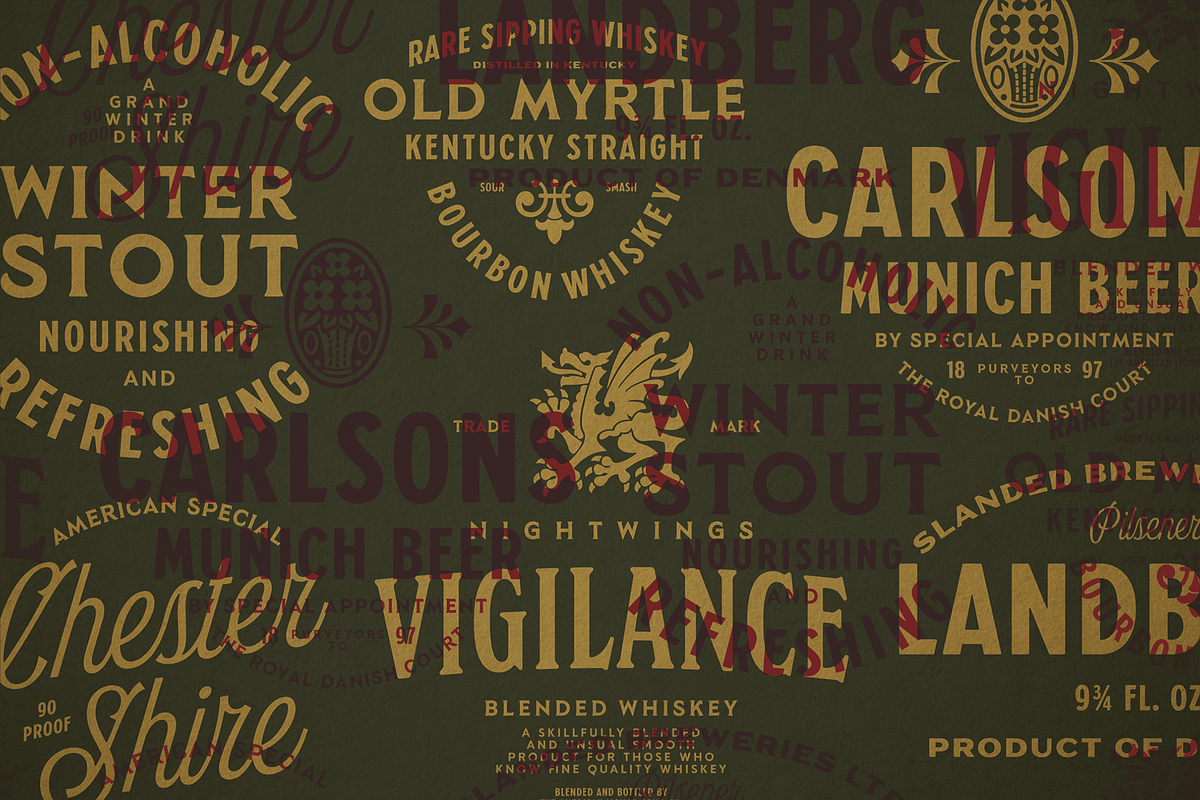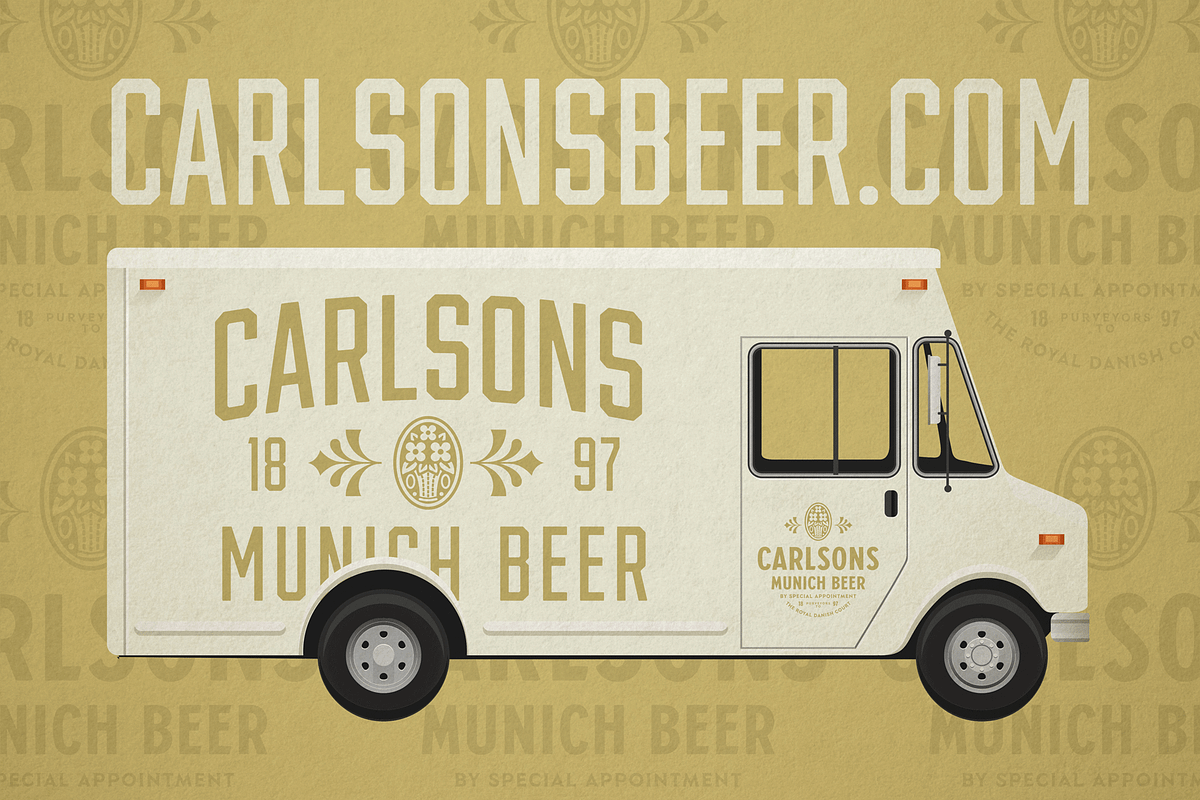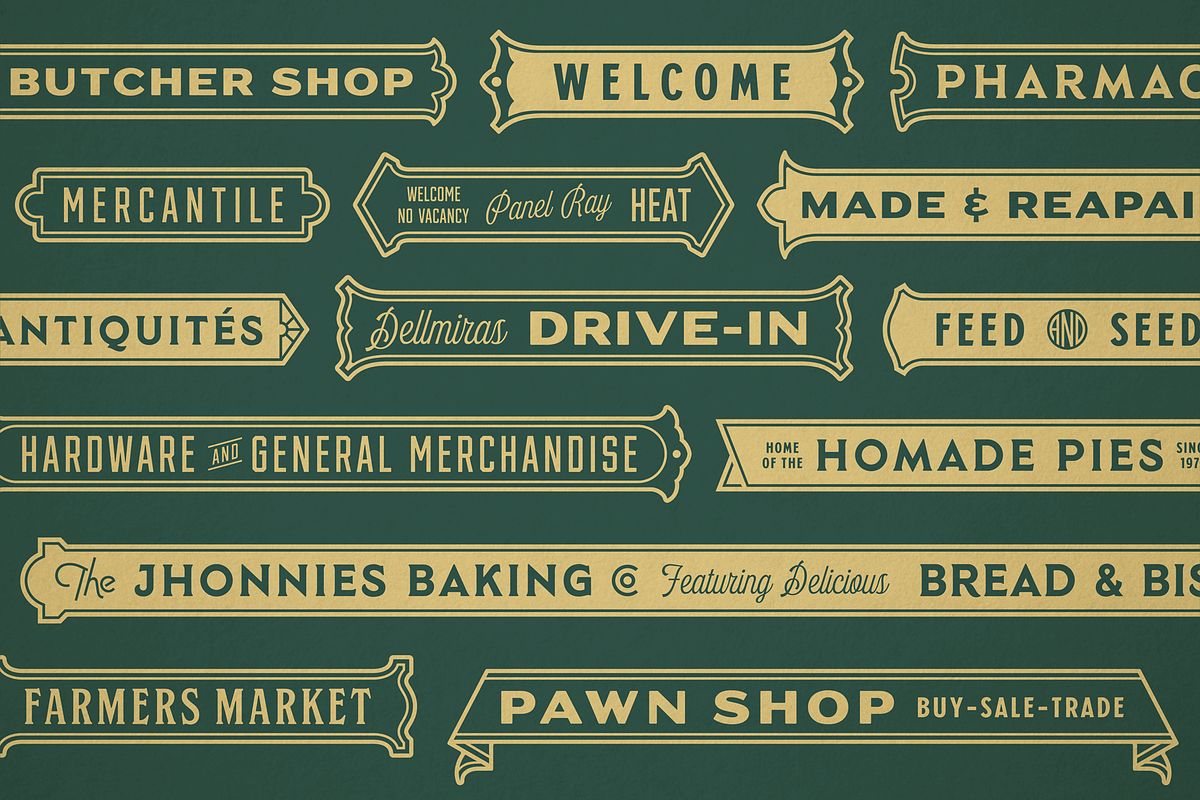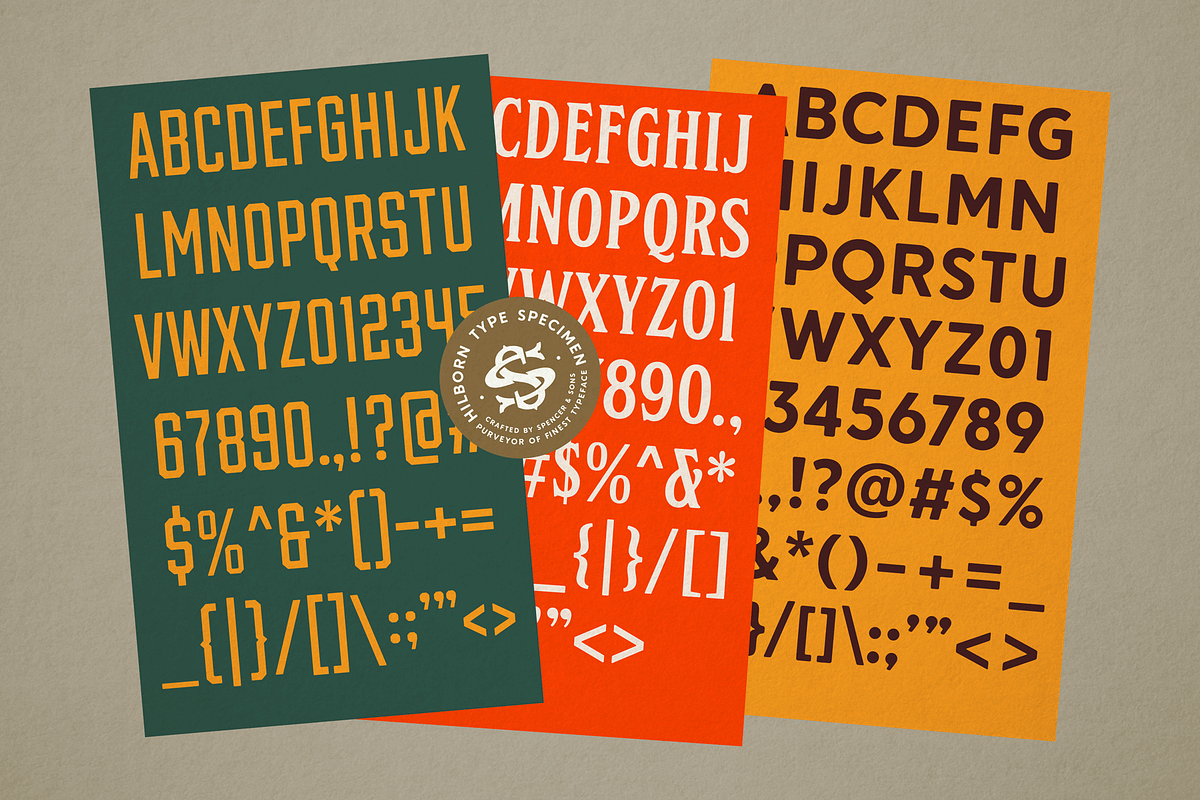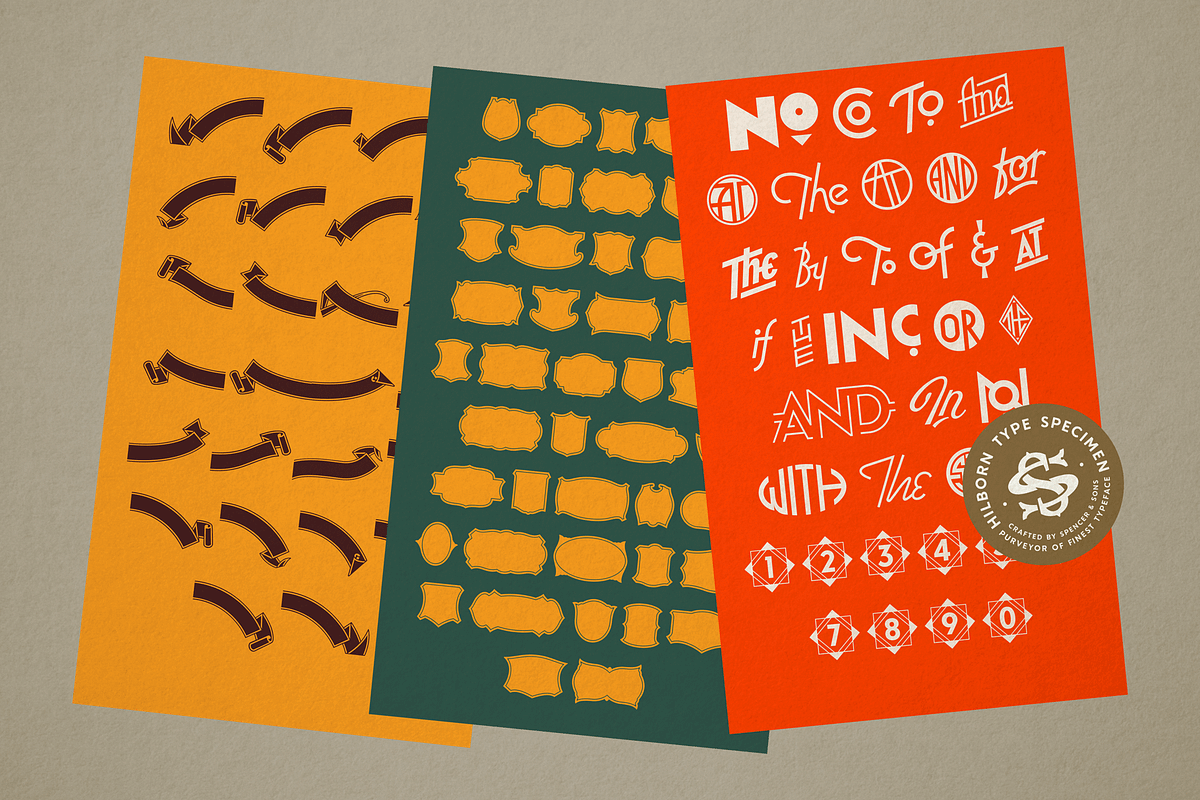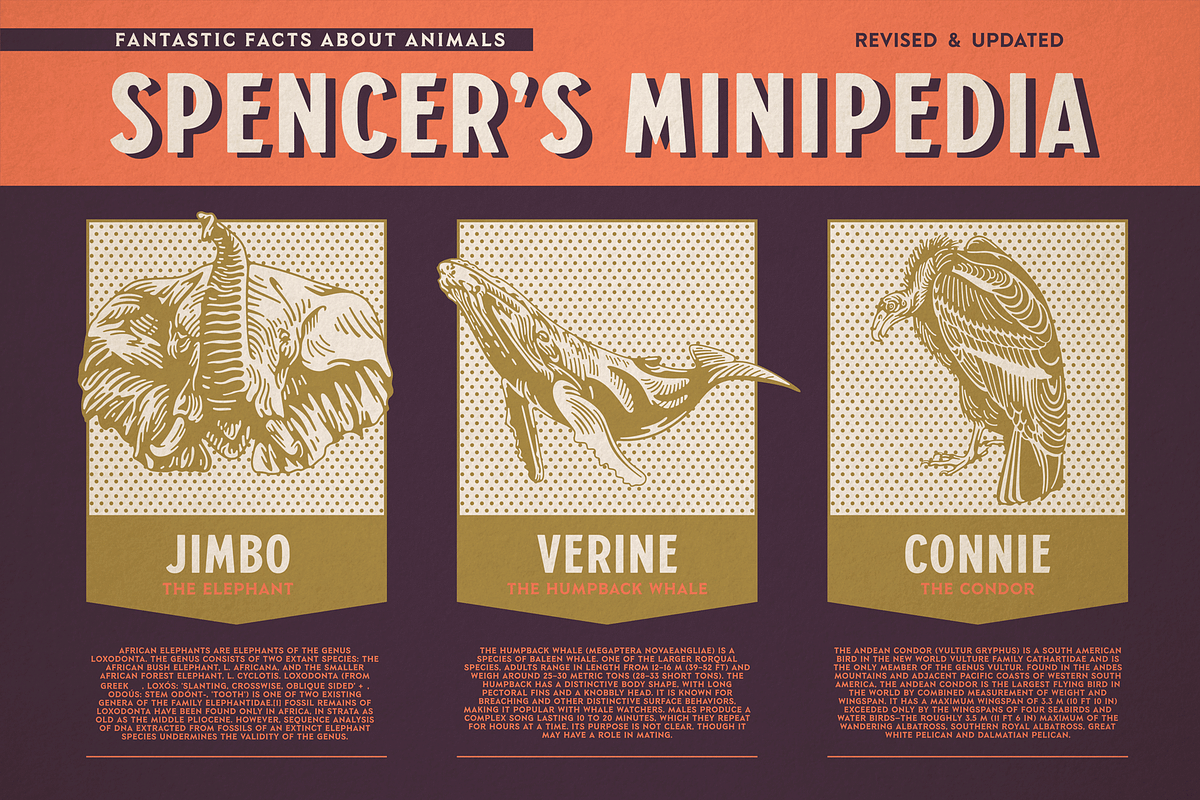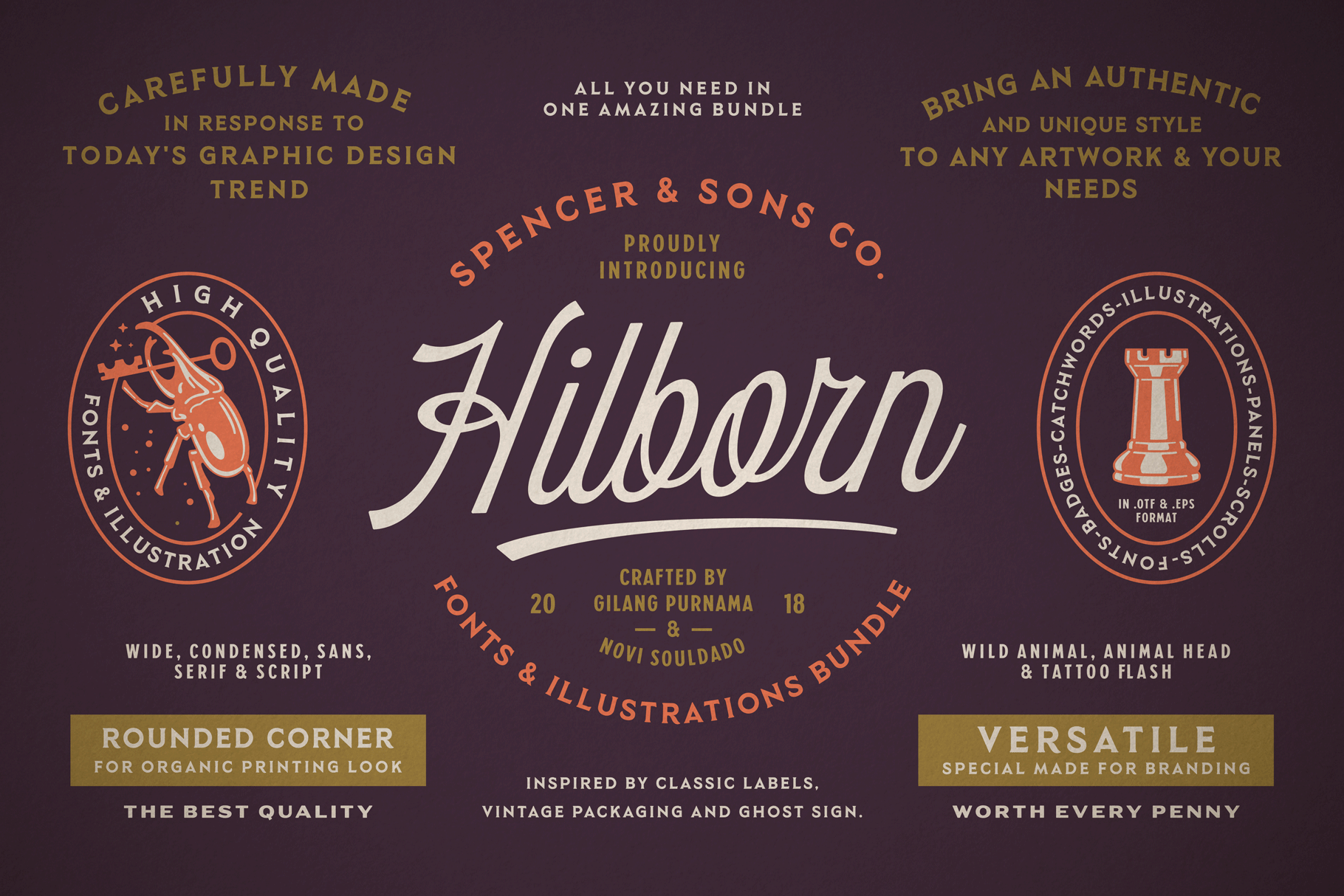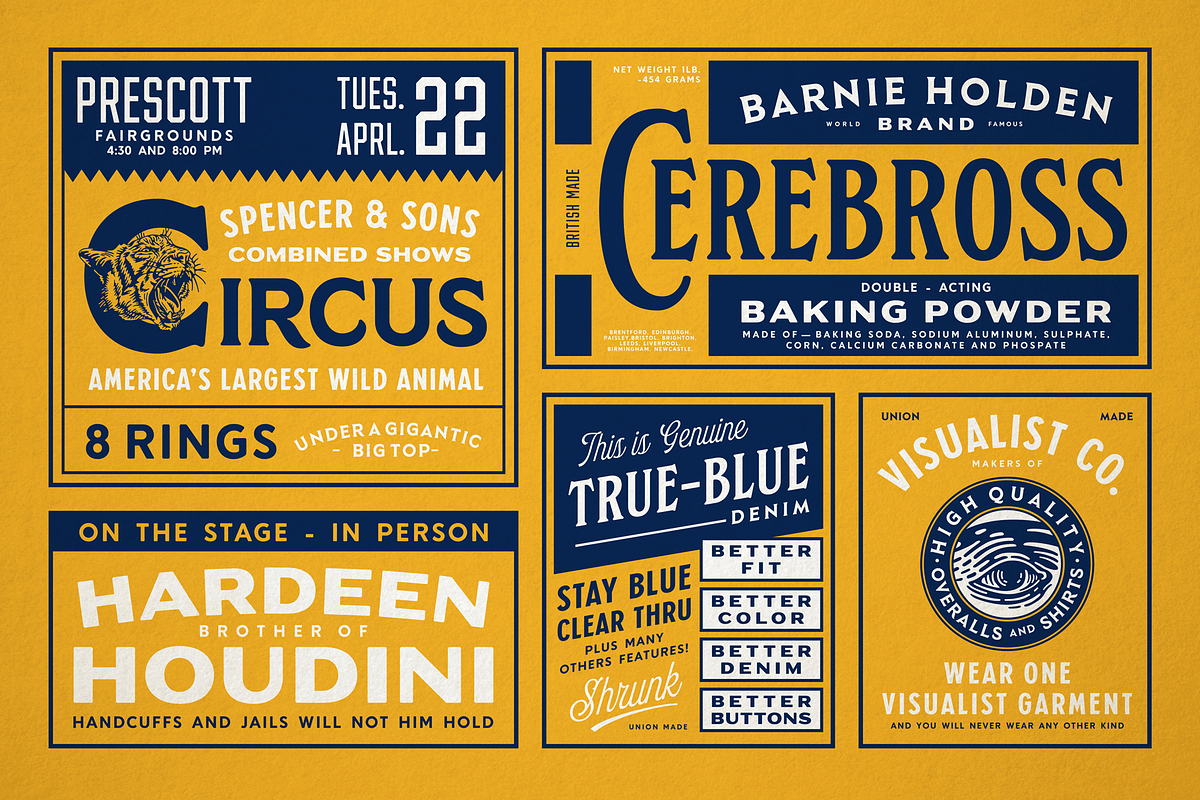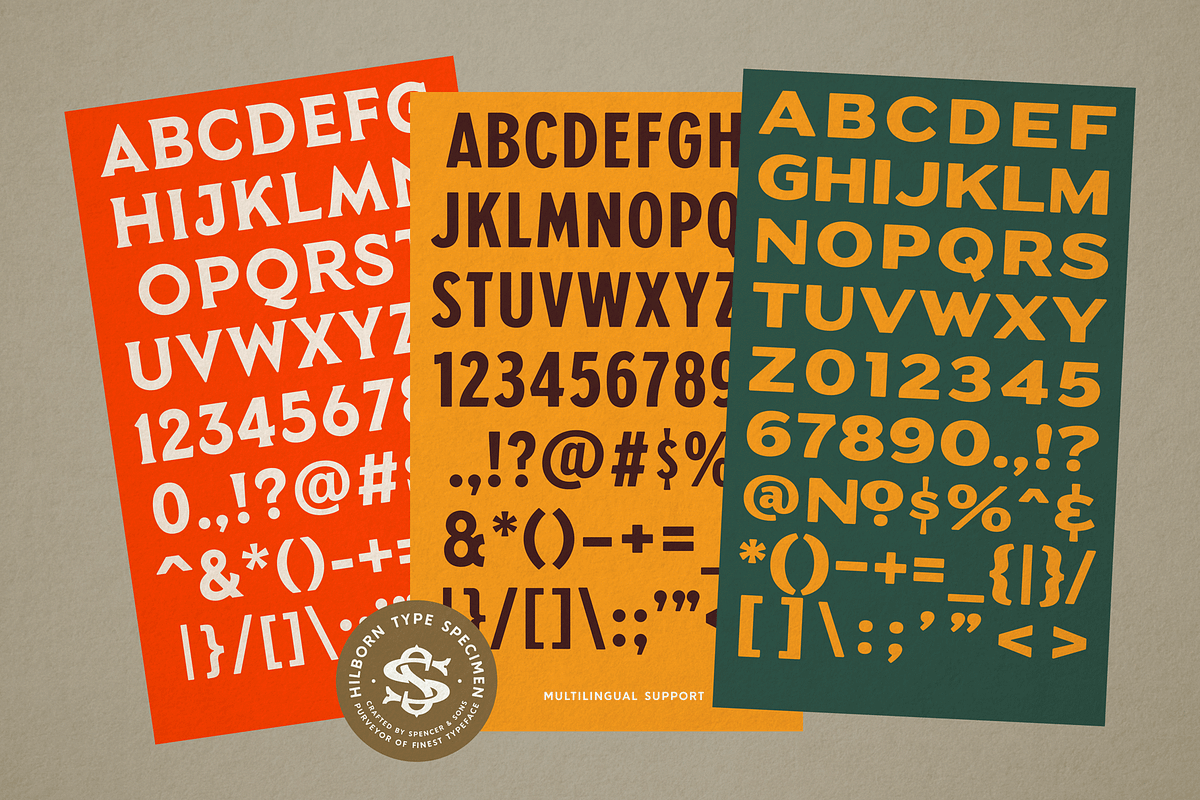
S&S Hilborn Font Bundle
S&S HILBORN FONT BUNDLE
S&S Hilborn font bundle is made in response to today's graphic design trend. Inspired by classic labels, vintage packaging, and old sign painting. This bundle will add a touch of worldly knowledge to your artwork, also go hand in hand to create logos, branding, ad's, signage and more!
- S&S Hilborn One
- S&S Hilborn Two
- S&S Hilborn Three
- S&S Hilborn Four
- S&S Hilborn Five
- S&S Hilborn Script
- S&S Hilborn Catchwords
- S&S Hilborn Badges One
- S&S Hilborn Badges Two
- S&S Hilborn Panels One
- S&S Hilborn Panels Two
- S&S Hilborn Baners